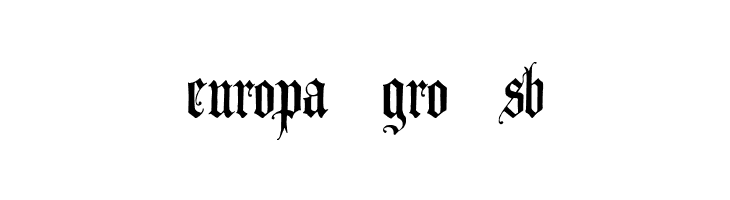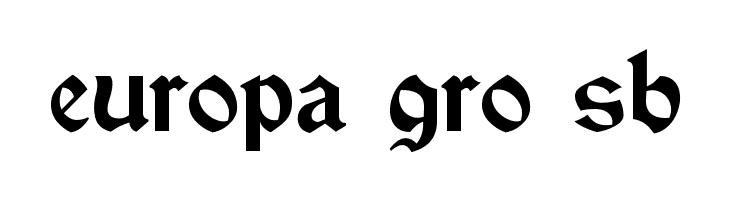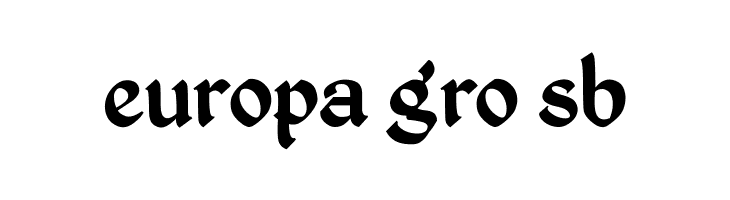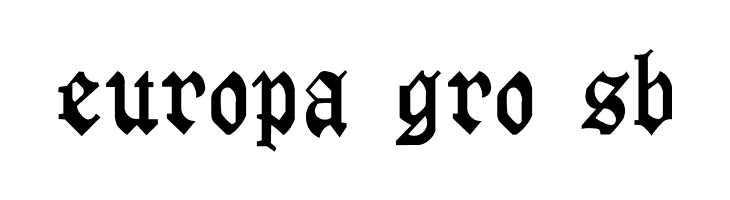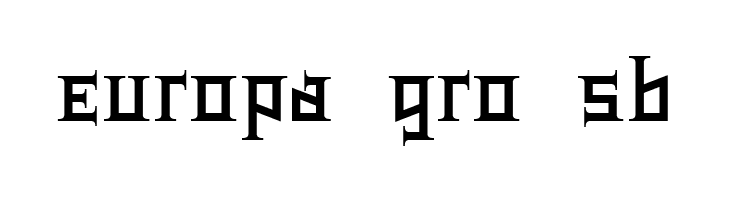
A decorative blackletter font with intricate flourishes and a gothic style.
A bold, medieval-style font with sharp, angular edges and decorative details.
A bold, medieval-inspired font with sharp, angular edges and a hand-crafted look.
A bold, ornate blackletter font with a medieval aesthetic.
A bold, gothic-inspired font with sharp, angular serifs and a medieval aesthetic.